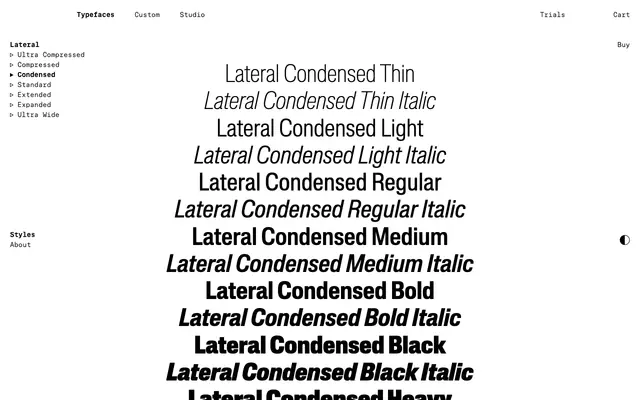
Lateral Condensed
Lateral Condensed specimen from Schick Toikka
The Condensed width of Lateral: a tight workhorse neo-grotesque between Compressed and Standard, in seven weights with italics.
Lateral Condensed sits one notch wider than Lateral Compressed and one notch narrower than Lateral Standard, within the seven-width Lateral system. The flat curve segments are still visible enough to read as a deliberate, slightly boxy detail, lending the cut a quietly brutalist edge while keeping it usable for editorial settings. Seven weights from Thin to Black with matching italics handle hierarchy from text to display, and the cut connects through the Lateral variable font to all other widths and to a slant axis.
The Condensed width within the seven-width Lateral system; sits between Compressed and Standard.